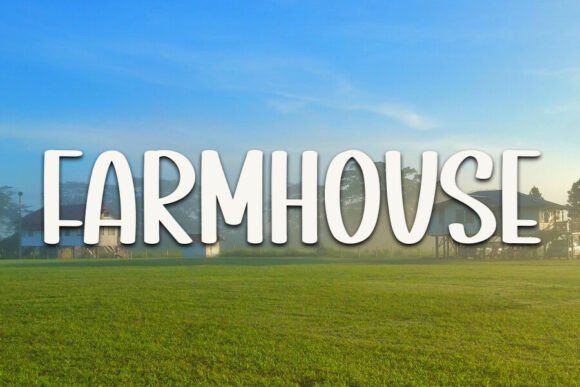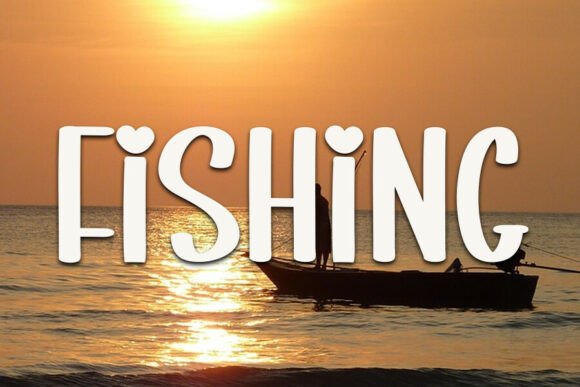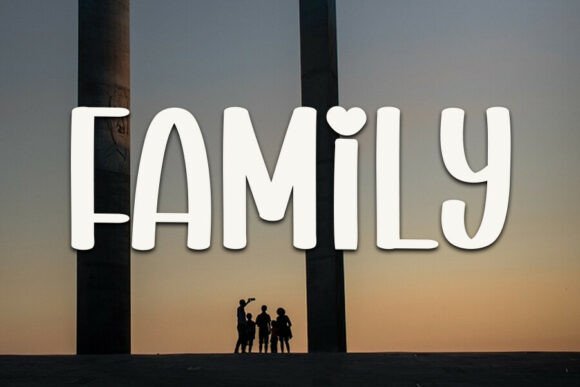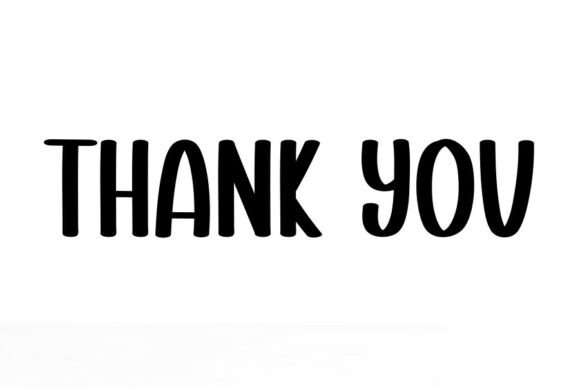
Introduction to Paperback Font
Remember that moment when you’re brainstorming ideas for a new design project, and you’re stuck trying to find the perfect font to convey the tone and personality of your brand? It’s frustrating, right? You want a font that’s not only stylish but also easy to read, and that’s exactly where the Paperback Font comes in.
This high-quality design resource is perfect for creative projects that require a modern yet laid-back vibe. With its clean lines and friendly letterforms, the Paperback Font is ideal for headlines, posters, packaging, and branding. And the best part? You can download it for free, making it an accessible design tool for designers of all levels.
Whether you’re working on a commercial project or a personal creative endeavor, the Paperback Font is a valuable addition to your design toolkit. Its transparent background and balanced structure make it easy to work with, and its playful energy brings a unique touch to any design.
Paperback Font
- Features a unique, vintage-inspired aesthetic perfect for book covers and literary themes
- Designed to be highly legible, making it suitable for body text and headings
Honest Review: Paperback Font
As a designer, I’m always on the lookout for high-quality fonts to elevate my creative projects. I recently came across the Paperback Font, and I must say, it’s been a game-changer for me.
Here are some of the things that work well with this font: ✨
- Unique aesthetic: The Paperback Font has a distinct, vintage vibe that’s perfect for projects that need a touch of nostalgia.
Of course, no font is perfect, and here are some limitations I’ve encountered: ⚠️
- Limited character set: The font doesn’t have a comprehensive character set, which can be a problem for projects that require a wide range of special characters.
- Not ideal for small text: The font can be difficult to read at small sizes, which can make it challenging for projects that require a lot of fine print.
Overall, I’m impressed with the Paperback Font. Its unique aesthetic and transparent background make it an excellent addition to any designer’s toolkit. While it has some limitations, I believe it’s still a valuable resource for creative projects.
Paperback Font
The Paperback Font is a high-quality design resource ideal for creative projects. It’s a versatile font that can be used for various purposes, from book covers to promotional materials.
Tips for Getting the Most Out of Paperback Font
Here are some tips to help you get the most out of the Paperback Font:
- Use the font on a transparent background to create a clean and modern look.
- Pair the font with a high-quality image to create a professional-looking design.
The Paperback Font is ideal for:
- Book covers and booklets.
- Promotional materials, such as flyers and brochures.